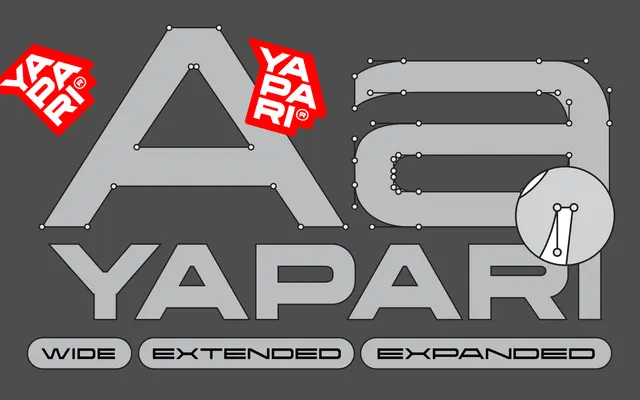
Yapari
Power Type · Teguh Arief · 2022
A display sans drawn from street lettering observed in Makassar, Indonesia, offered as a variable font across nine weights and four width variants.
Designed by Teguh Arief and released in June 2022, the family spans 36 static fonts covering Thin through Ultra across Regular, Wide, Extended and Expanded widths. The street lettering source gives it a bold, informal character suited to display work, signage and graphic design projects where strong visual weight is needed. Variable font axes for weight and width allow fluid adjustment across the full range without switching between static files.
Though categorised by the foundry as sans-serif and decorative, the street typography origins and strong width variation make it primarily a display face; the decorative and variable nature places it firmly in the display category.